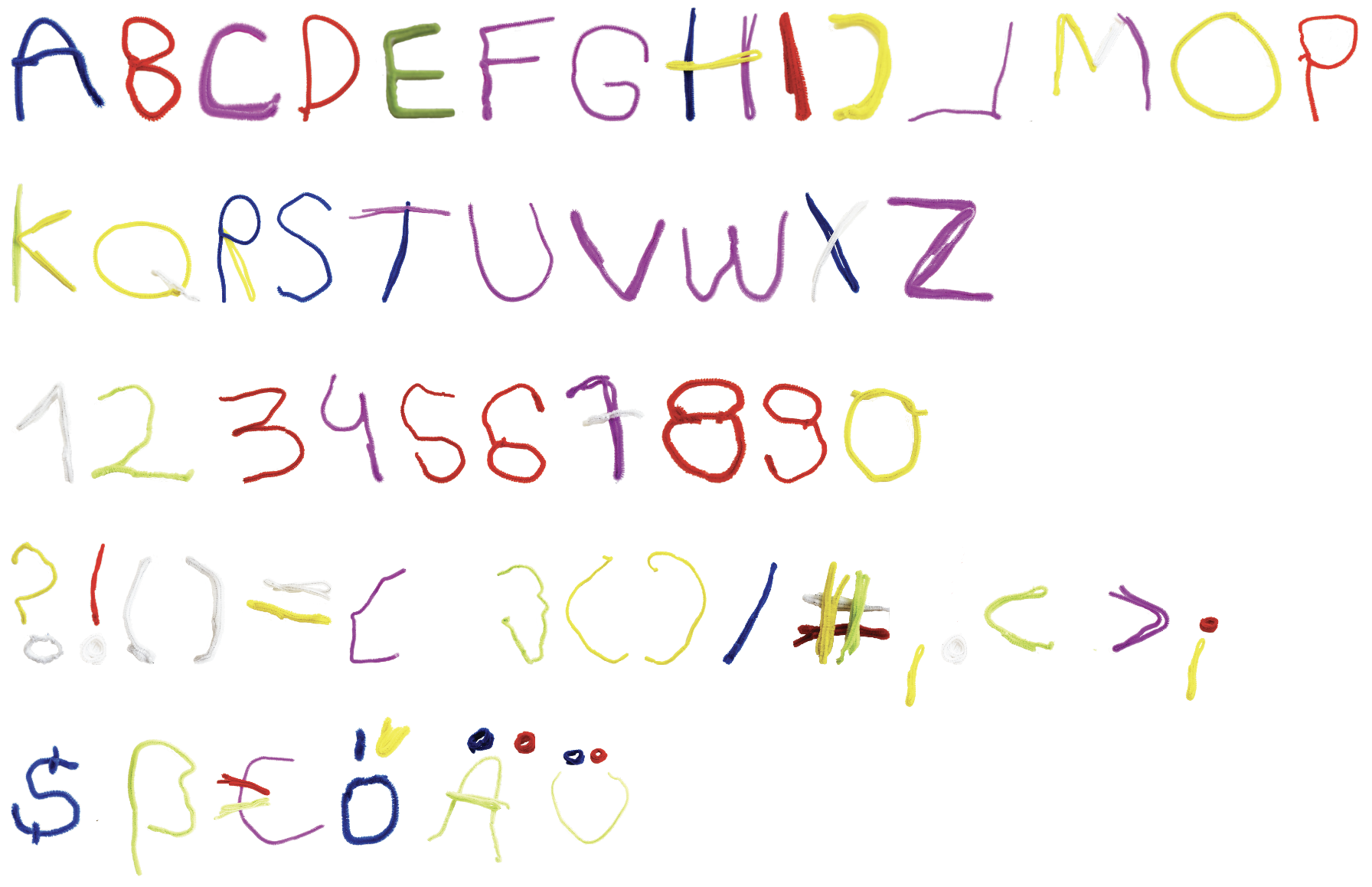
9. WEDZE PIPE CLEANER
PIPE DREAMER is a typeface bent and twisted from pipe cleaners, those fuzzy wires that never quite do what you want. The letters curl into shape with a sort of friendly stubbornness, soft on the outside, wiry on the inside. It’s playful, a little lumpy, and definitely handmade. Perfect for anything that needs a touch of craft-table chaos.